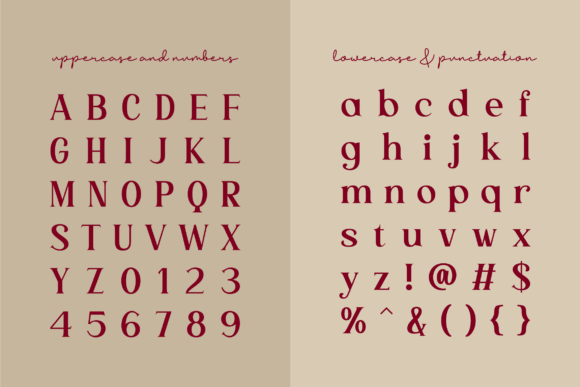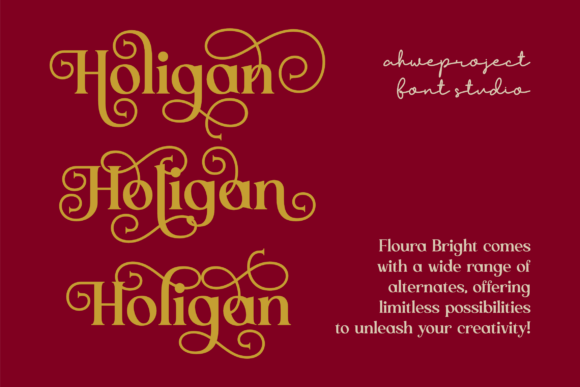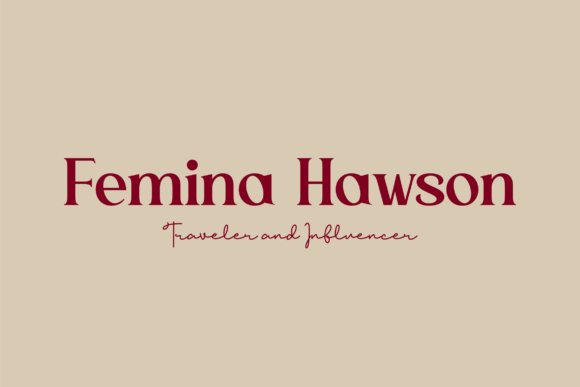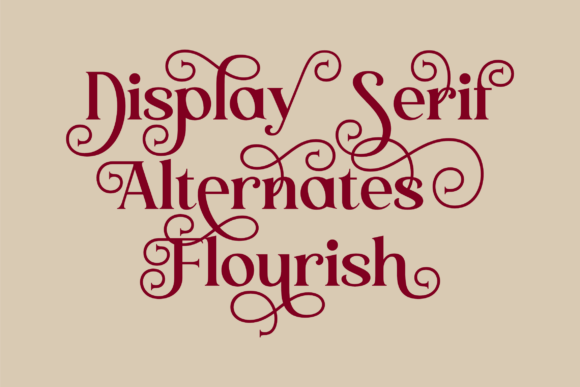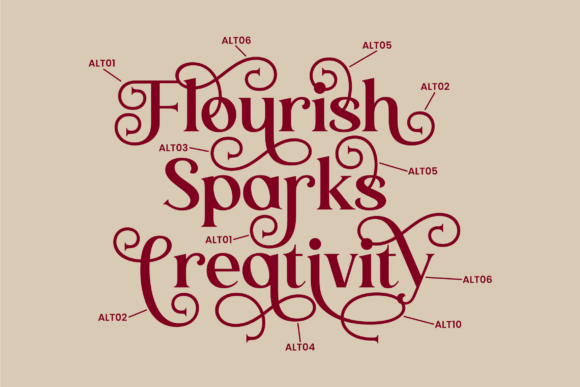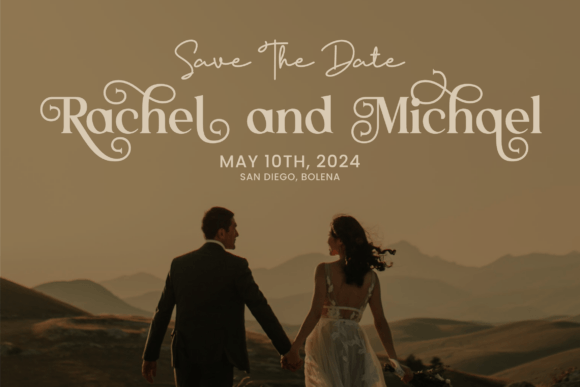
Introducing Floura Bright: The Elegant Serif Font for Creative Projects
In the world of typography, a font can make or break the aesthetic of a design project. For those seeking a touch of elegance and charm, Floura Bright emerges as a curly and stylish serif font that perfectly balances sophistication and creativity. Its unique swirly details and bold structure make it an ideal choice for a variety of projects, from luxury branding to elegant invitations and editorial designs.
Design Characteristics of Floura Bright
Floura Bright is distinguished by its curly, swirly serifs that add a decorative flair to any text. The font’s design combines traditional serif elements with modern, whimsical touches, creating a distinctive look that stands out in the world of typography. Its bold structure ensures legibility, making it suitable for both headlines and body text, while its elegant details bring a touch of sophistication to any design.
Perfect for Luxury and Feminine Themes
Floura Bright’s design makes it particularly well-suited for luxury themes and feminine designs. The font’s ornate details and elegant appearance evoke a sense of high-end quality, making it perfect for branding projects that aim to convey luxury and sophistication. Additionally, its feminine touch makes it a great choice for designs targeting a female audience or for projects that require a soft, elegant aesthetic.
Applications of Floura Bright
The versatility of Floura Bright allows it to be used in a wide range of applications. Some of the ideal uses for this font include:
• Branding: Use Floura Bright to create a luxurious and memorable brand identity. Its unique style will help your brand stand out and convey a sense of elegance and sophistication.
• Invitations: Whether it’s a wedding invitation, a birthday party invite, or any other special occasion, Floura Bright adds a touch of class and charm that will make your invitations truly special.
• Editorial Designs: For magazines, blogs, and other editorial content, Floura Bright can be used to create headlines that grab attention and add a touch of elegance to the page.
Why Choose Floura Bright?
There are several reasons why designers and crafters might choose Floura Bright for their projects:
• Unique Style: Floura Bright offers a unique blend of elegance and whimsy that is hard to find in other fonts.
• Legibility: Despite its ornate details, Floura Bright remains highly legible, making it suitable for both large headlines and smaller body text.
• Versatility: The font’s versatility means it can be used in a wide range of projects, from luxury branding to more casual, creative endeavors.
Tips for Using Floura Bright Effectively
To get the most out of Floura Bright, consider the following tips:
• Pair with Simpler Fonts: For body text, consider pairing Floura Bright with a simpler, sans-serif font to create contrast and ensure readability.
• Use for Headlines: Take advantage of Floura Bright’s bold and elegant appearance by using it for headlines and titles.
• Experiment with Colors: Floura Bright looks great in a variety of colors, but it’s particularly striking in metallic or pastel shades that enhance its luxurious feel.
Floura Bright is a curly and stylish serif font that brings a unique blend of elegance and creativity to any design project. Its swirly details and bold structure make it perfect for projects that require a touch of sophistication and charm. Whether you’re working on luxury branding, elegant invitations, or editorial designs, Floura Bright adds a unique personality to your work. With its ideal mix of ornateness and legibility, it’s an excellent choice for designers and crafters looking to add a touch of class to their creations.